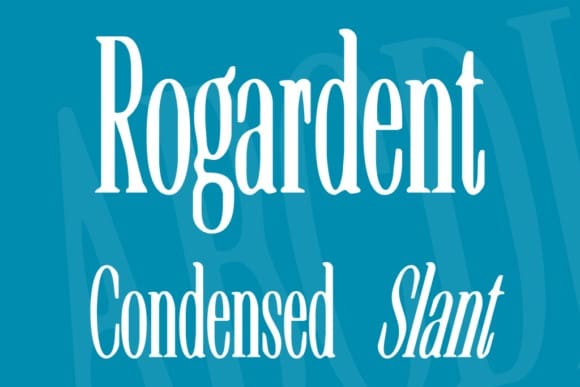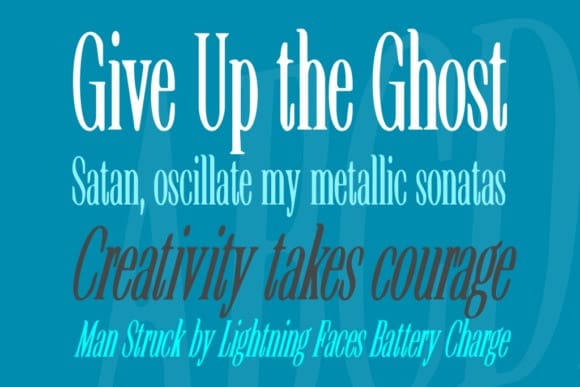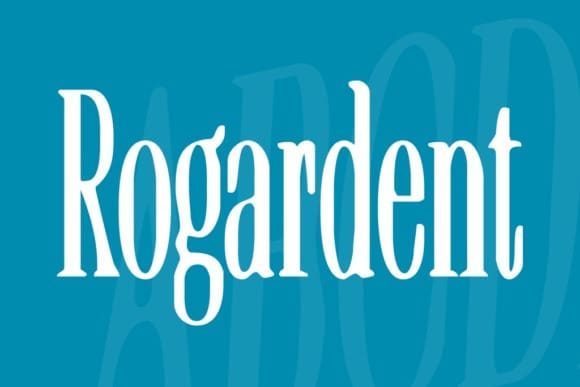
Rogardent Font
Rogardent Font – a condensed serif font adorned with a natural touch. Breathe life into your projects with its distinctive style, rendering a fabulous aesthetics wherever utilized. Its unique blend of compact design and organic elements make Rogardent the go-to choice for amplifying the visual appeal of your creatives.